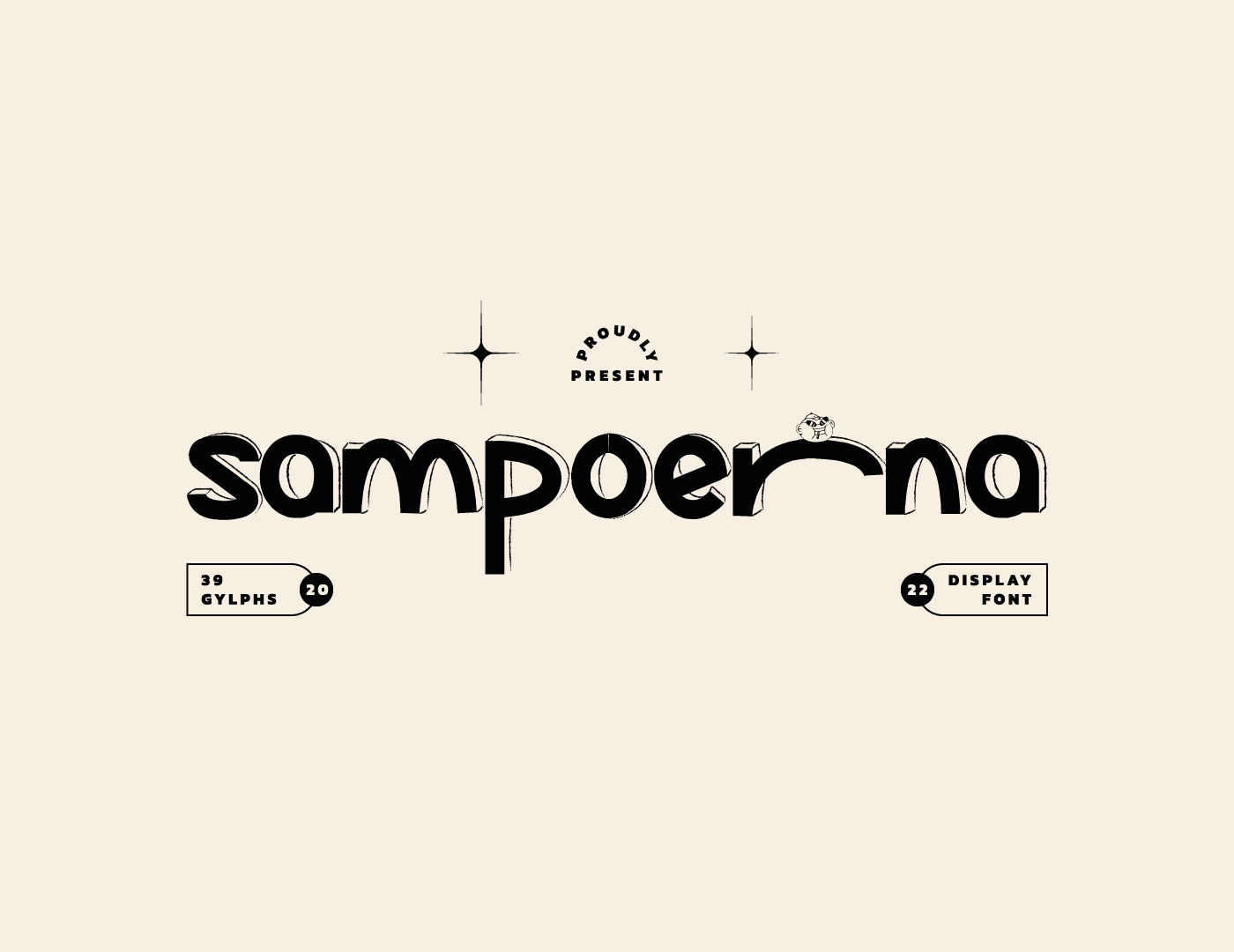
Sampoerna Handwritten Display Font
This is one of many beautiful display font, Sampoerna font has a design that is a full and bold but still beautiful. Inspired by the piece of woods blocks. The no sharp corners make this font look flexible, plus the outlines gives the font a 3D feel so this font is suitable for invitation card designs, social media post, greeting cards, posters and any design.